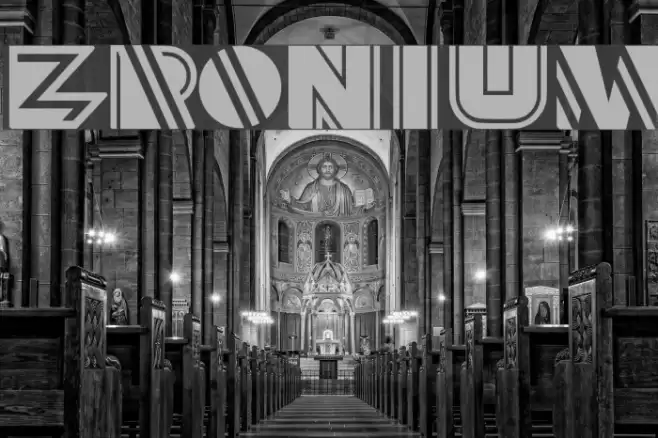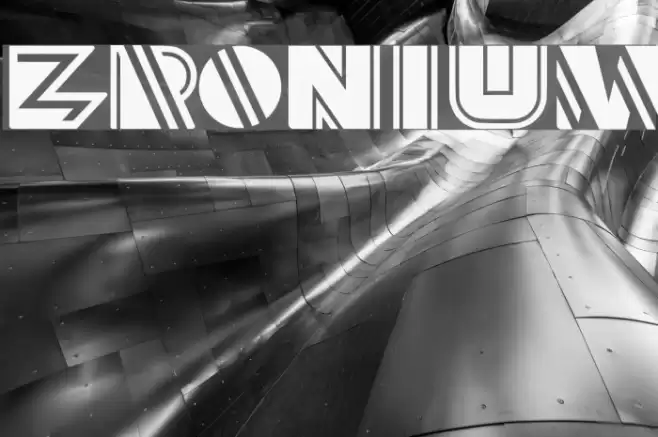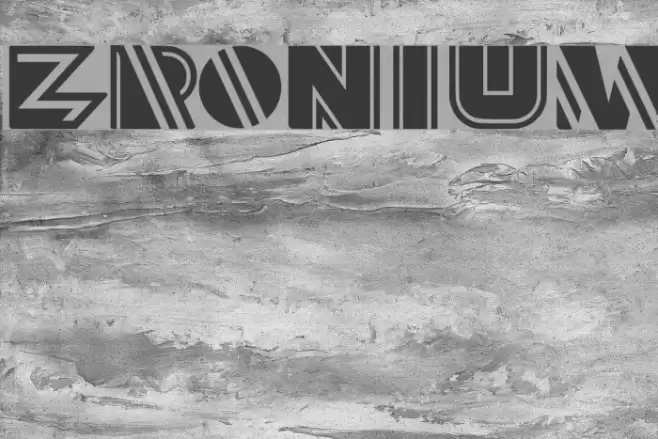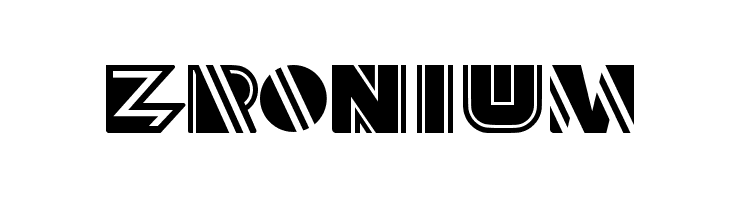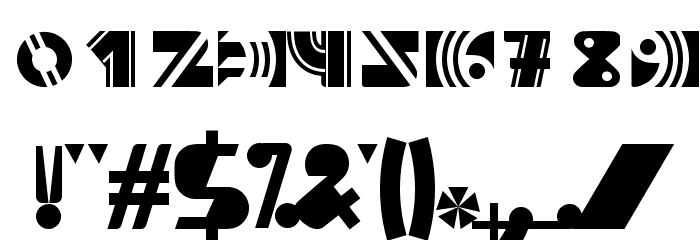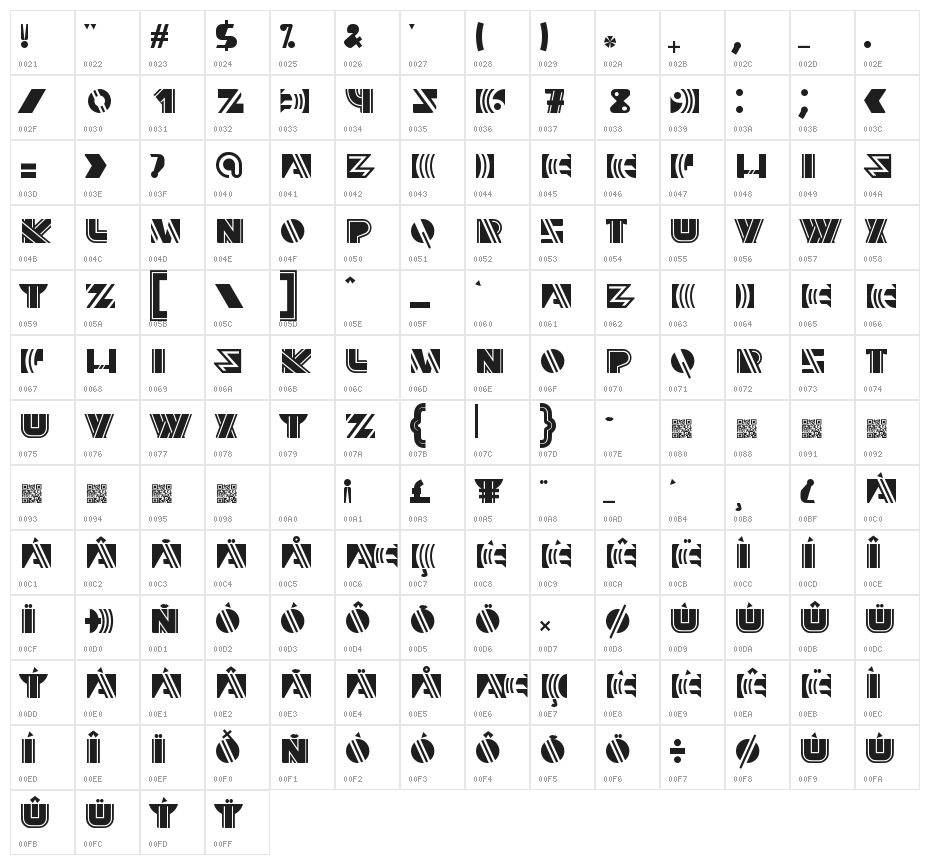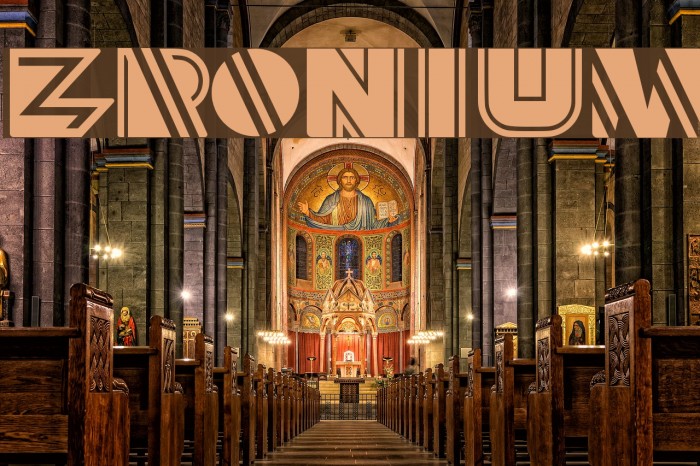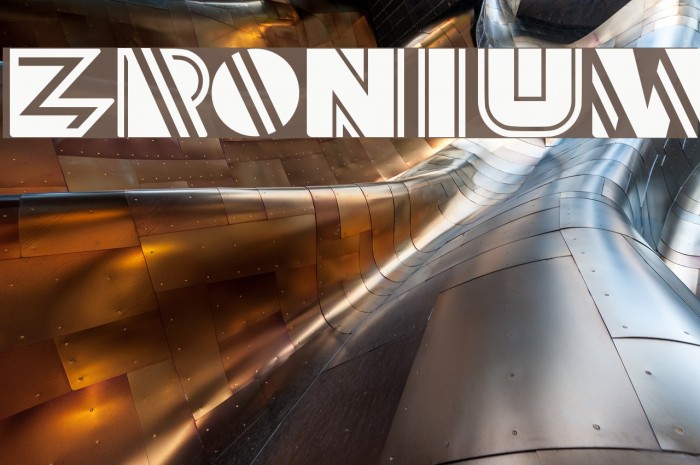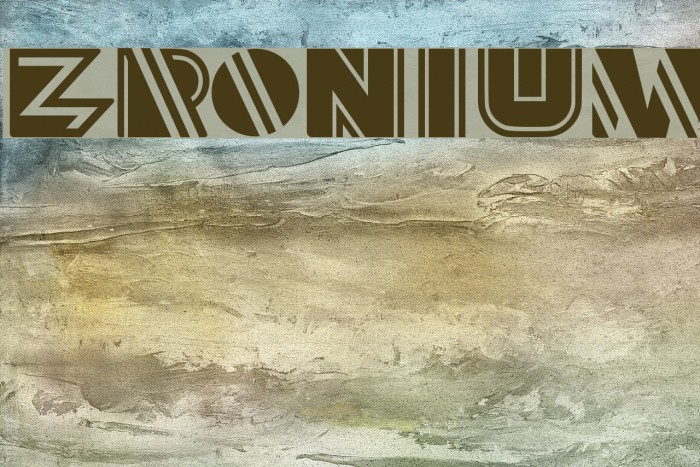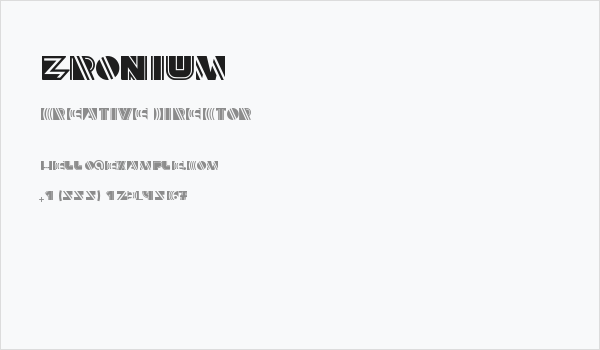
Bronium Font
Bronium Description
This font features a bold, geometric design with a futuristic flair. Each character is crafted with sharp angles and intricate patterns, creating a sense of movement and energy. The uppercase letters are particularly striking, with unique cutouts and overlapping lines that add depth and dimension. The numbers and special characters maintain this dynamic style, ensuring consistency throughout. This font is perfect for projects that require a modern, edgy aesthetic, making it ideal for technology-related branding, sci-fi themes, or any creative endeavor that seeks to stand out.
A bold, geometric font with a futuristic and dynamic style from Uncategorized fonts.
- Proposed Projects: Ideal for technology branding, sci-fi themes, posters, and creative designs.
- Overall Style: Futuristic